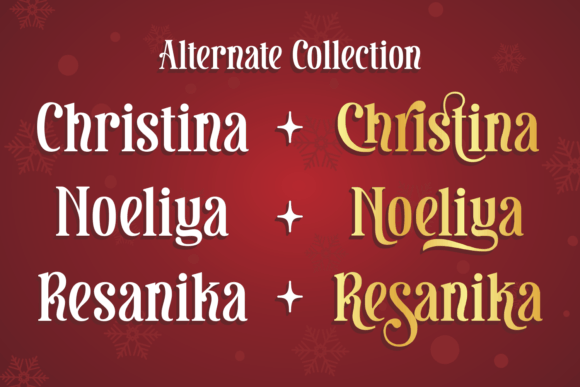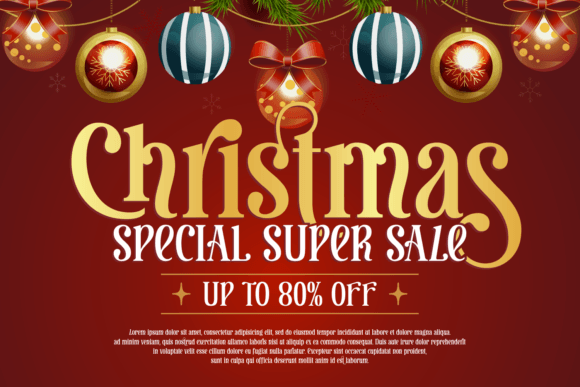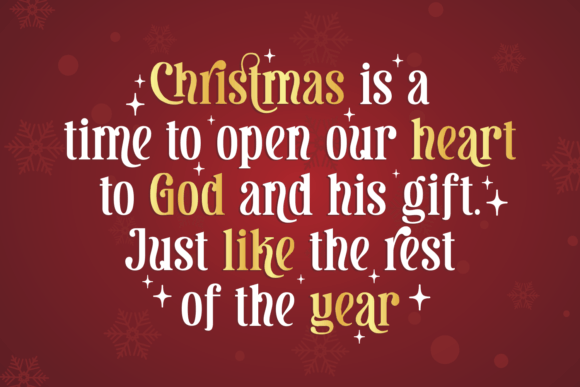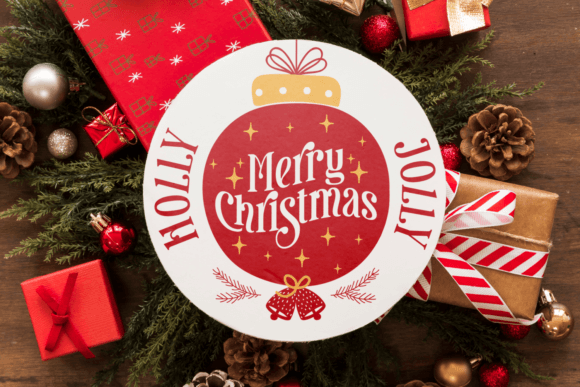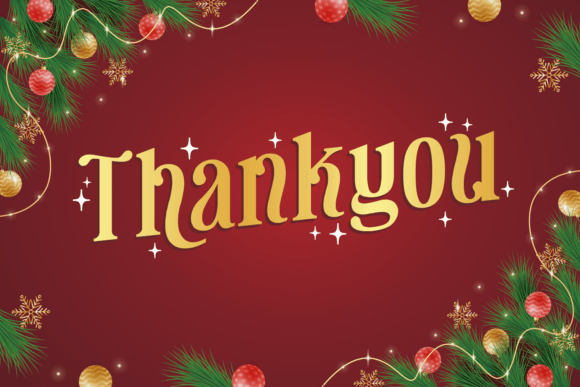
Glistening Christmas Font
Glistening Christmas is a festive serif font that adds a touch of holiday magic to your text. With elegant serifs and a hint of shimmer, this font captures the spirit of Christmas in every character. Perfect for holiday cards, invitations, or seasonal designs, Glistening Christmas brings a touch of joy and sophistication to your festive messages. Embrace the spirit of the season with this charming and versatile serif font.